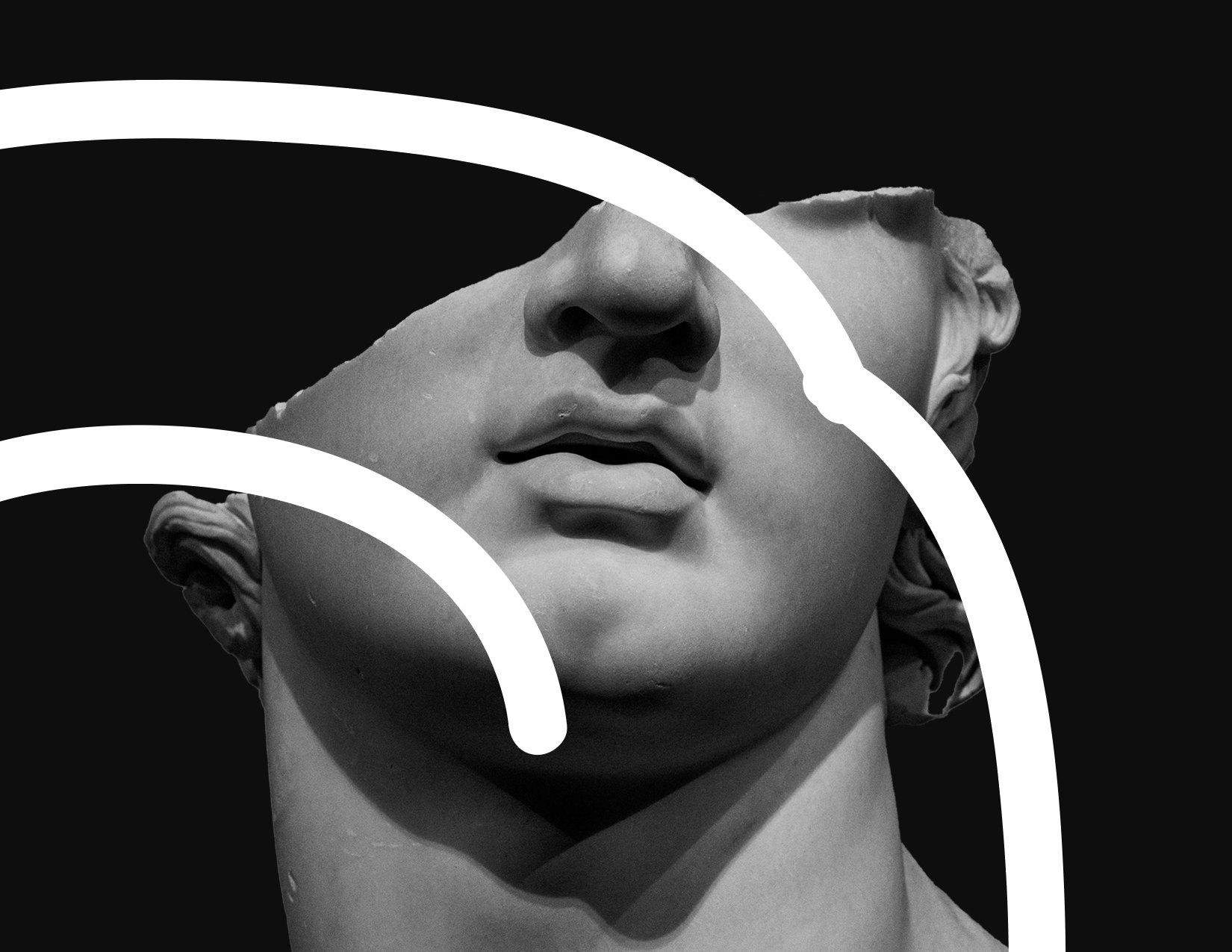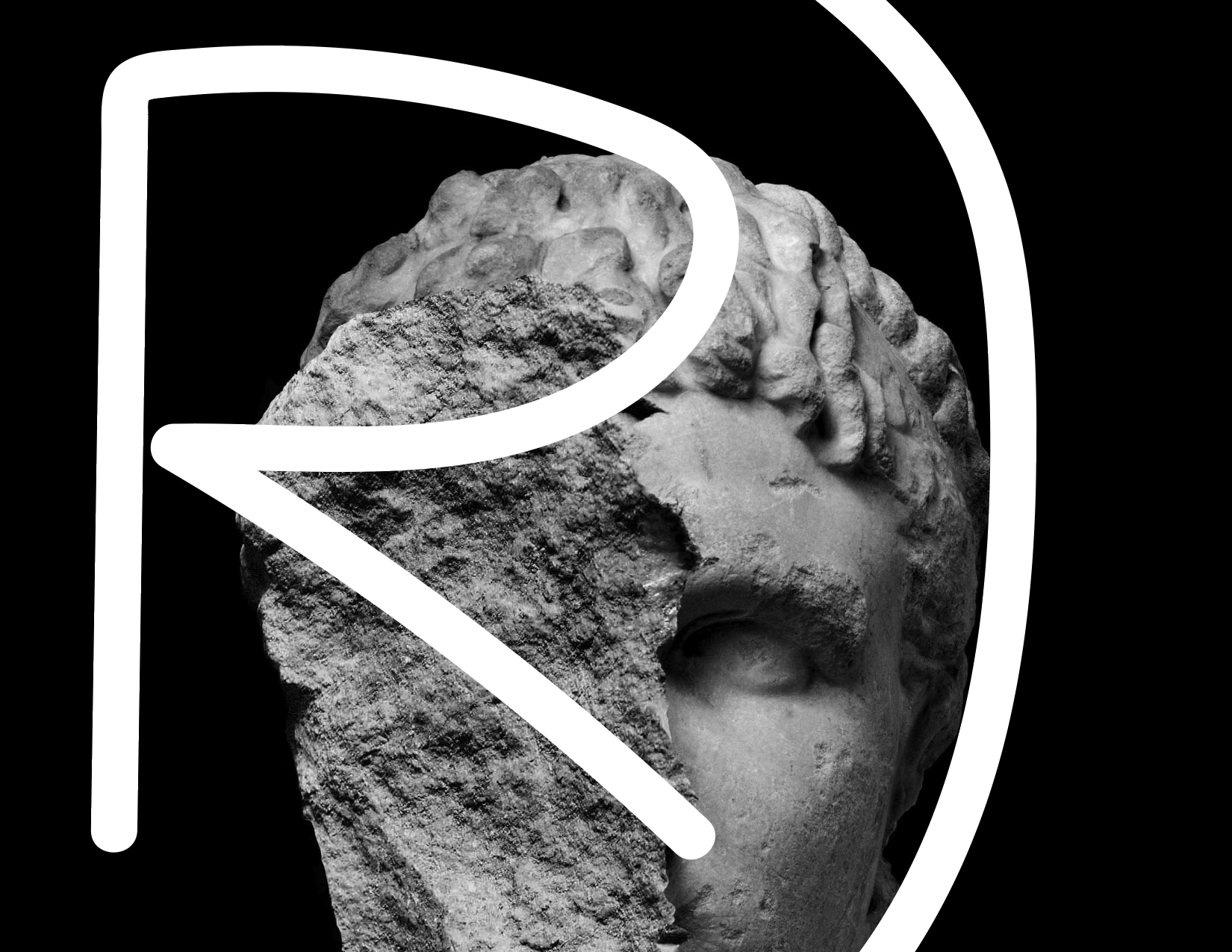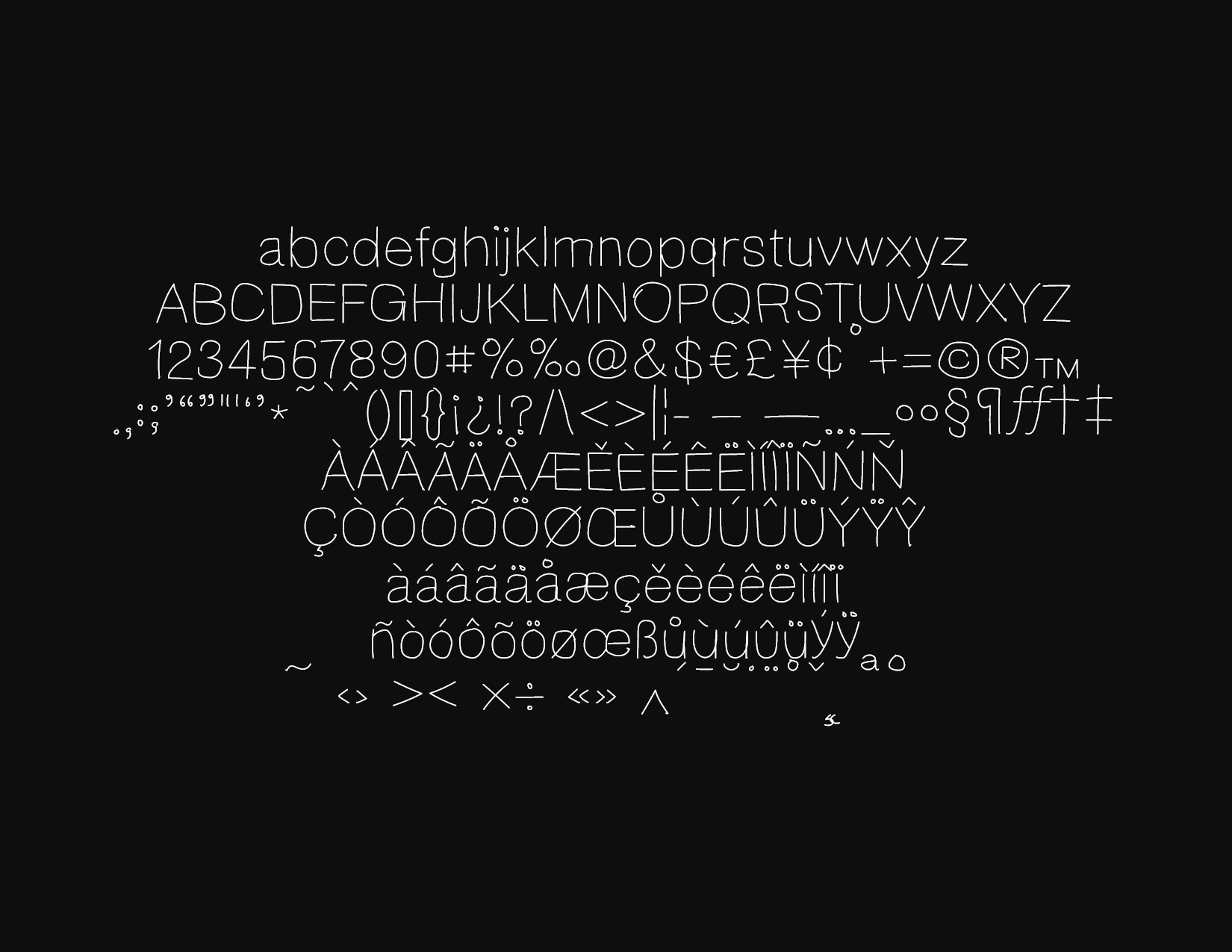
Hellveti
I named it Hellveti because working with Helvetica—breaking it apart, reassembling it, trying to give it soul—felt like crawling through typographic hell. Every curve, every decision, haunted by the ghost of perfection. It’s a nod to the torture of remixing something so rigid, so revered, that even the slightest tweak feels like blasphemy. Also…it just sounded cool. Helvetica’s evil twin. Helvetica with attitude. Helvetica if it had a punk phase, and never grew out of it.